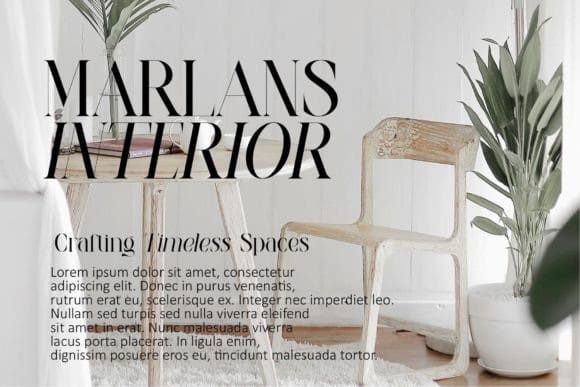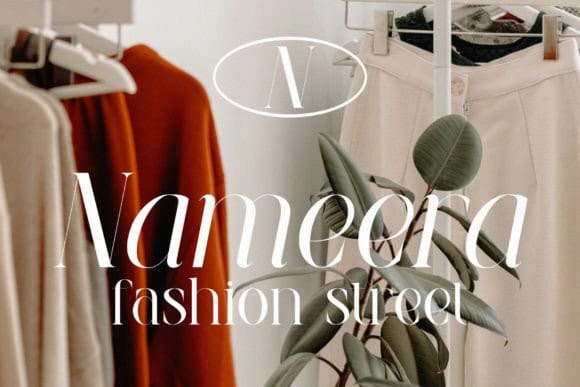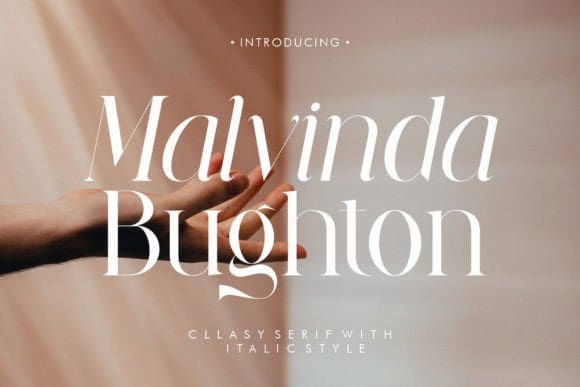
Malvinda Bughton Font
Malvinda Bughton Font is a classy serif font. It’s like the fancy writing you might see in a book or on a special invitation. The letters have little decorations on the ends that make them look elegant and sophisticated. It’s perfect for adding a touch of style to your words.